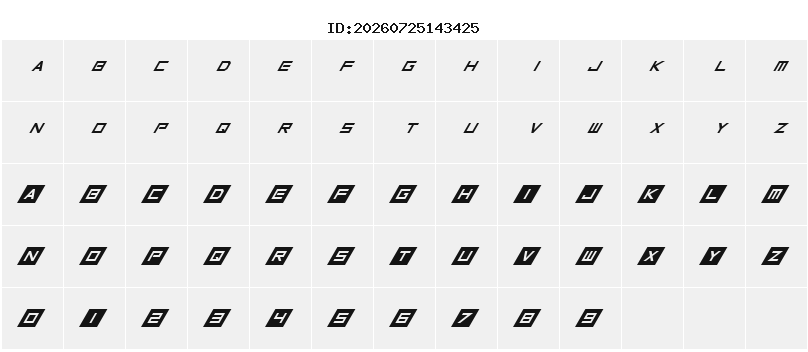
• Font Name: InversionzItalic
• Font ID: InversionzItalic Italic:Version 1.00
• Full Font Name: InversionzItalic Italic
• Version: Version 1.00 January 18, 2015, initial release
• PostScript Name: InversionzItalic-Italic
• Character Count: 163
• Copyright: Copyright Darrell Flood 2015
• Designer: Darrell Flood
About InversionzItalic.otf
InversionzItalic.otf is a modern, elegant sans-serif font designed for ultimate readability and visual harmony. Perfect for branding, headlines, web design, and print materials.